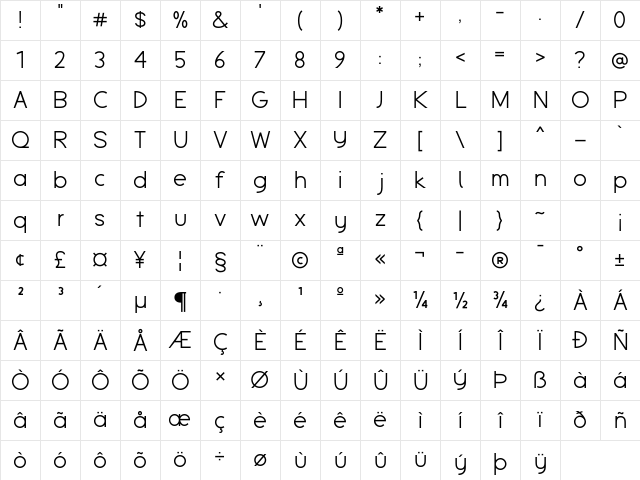
Espera Regular
Designer: Barbara Trein
Design Context for Espera
Espera is a composed and adaptable typeface that performs quietly and consistently across a wide range of design contexts.
Pro Tip: Use Espera in both headline and body roles to test its range before committing to a single application.